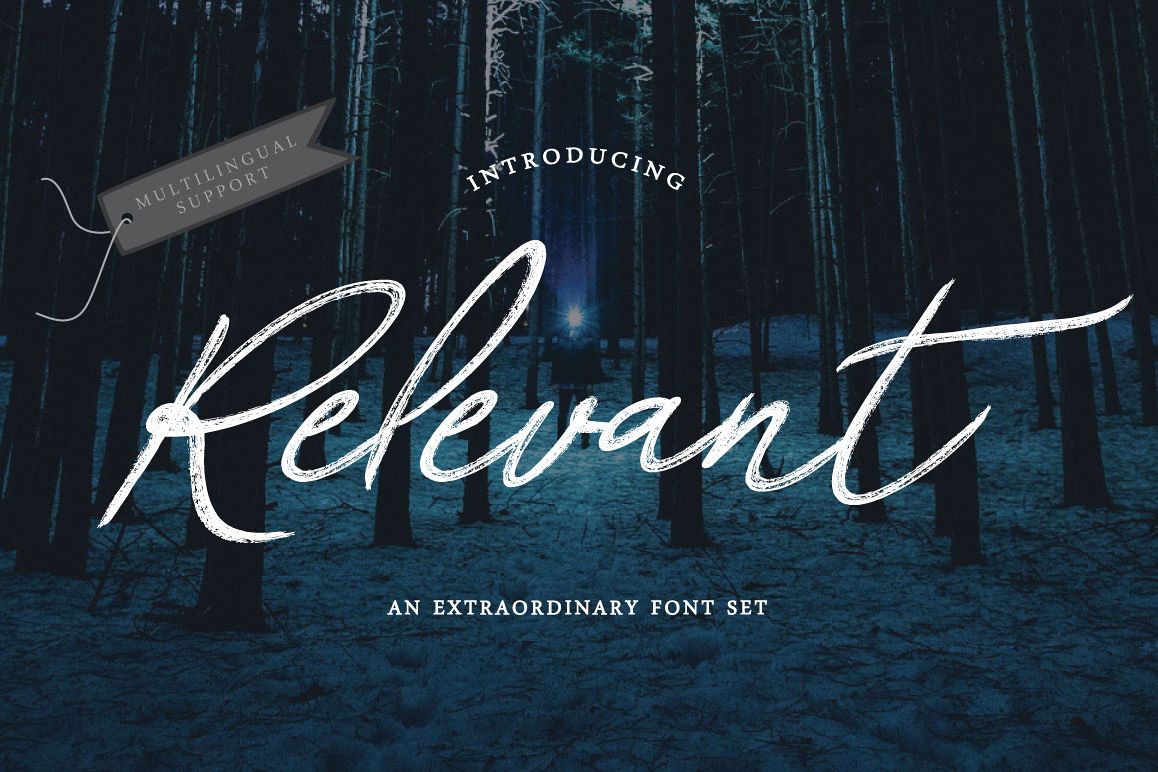
Relevant font set are a brush script typeface
with an addition of sans type as a pair of brush set for your design. An
imperfect and confident brush font is designed to be easily customizable with 2
sets of each letter to give you an alternative in creating beautiful hand-made
typography within a second. Use Relevant will help you create
custom hand-lettering brush taste with a chilled character. ;)
Hand brush two alternative for both lowercase and
uppercase characters will allow you to create different feels for different
projects. The sans style is also as a backup for your design taste. Ligatures
also available for some characters to create more natural look. Try switching
between the regular and alternate characters as well as the sans style to get
the best layout for your typography. Oh it also available in large range of
punctuation and multilingual support.
Relevant brush script is perfect for logos,
websites, invitations, greeting cards, magazines, business cards, packaging and
many more! Be a perfect professional in a minute and start creating modern
designs.